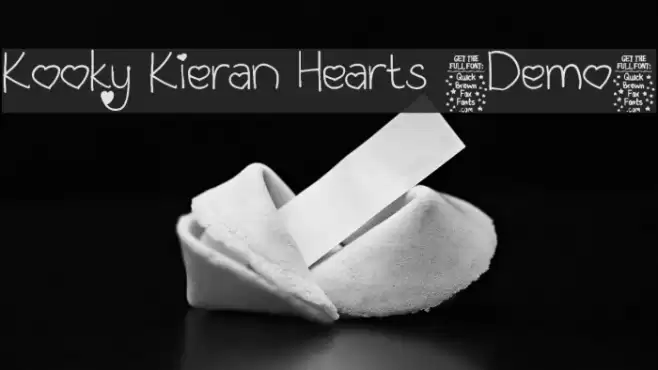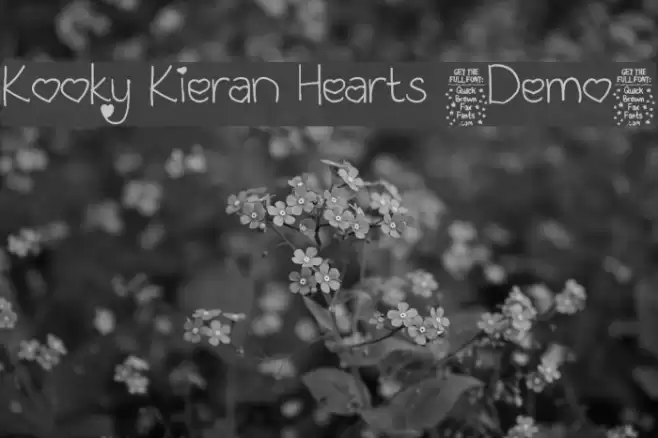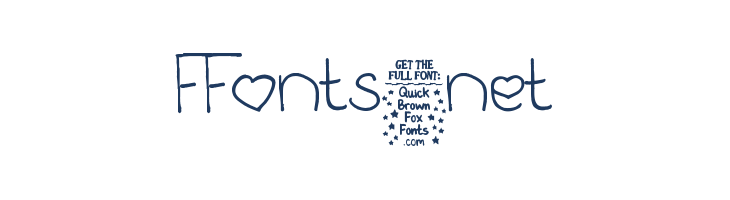
Kooky Kieran Hearts [Demo] Font
Kooky Kieran Hearts [Demo] Description
This playful and whimsical font features a unique design where certain letters incorporate heart shapes, adding a charming and romantic touch. The strokes are uneven and slightly irregular, giving it a hand-drawn appearance that enhances its casual and friendly vibe. The uppercase and lowercase letters maintain a consistent style, with the heart motif prominently featured in letters like 'O' and 'o'. The font's overall look is light-hearted and fun, making it ideal for projects that require a personal and informal feel. The characters are well-spaced, ensuring readability while maintaining the decorative elements.
A playful, heart-themed font with a hand-drawn, whimsical style from Uncategorized fonts.
- Proposed Projects: Ideal for greeting cards, wedding invitations, playful branding, and children's book covers.
- Overall Style: Whimsical, Playful
- Use Case: Logos, Headlines, Invitations